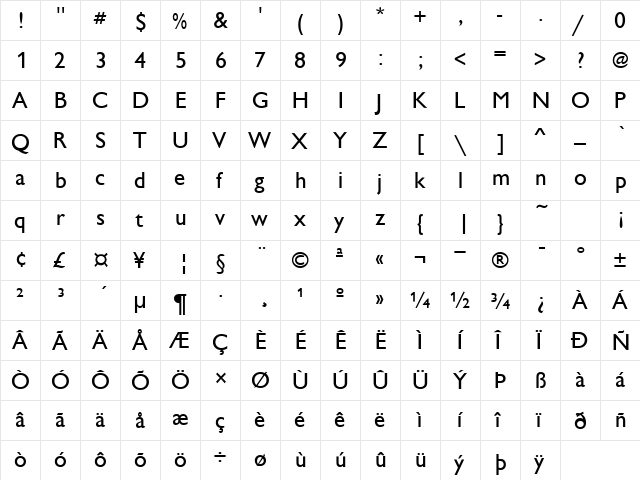
ChantillyM Regular
ChantillyM offers clean, dependable letterforms without strong stylistic allegiance, making it a practical choice for designers who need flexibility.